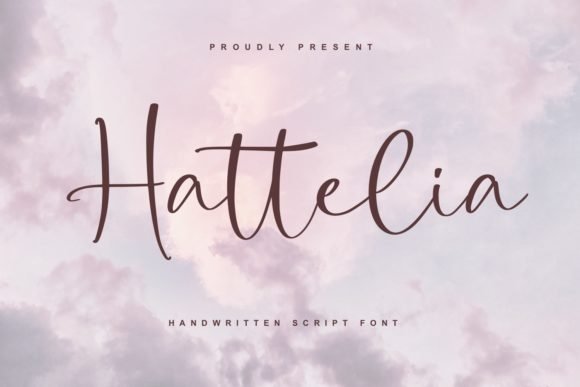
Introducing the Hattelia Font, a beautiful and light handwritten font that adds a touch of luxury to any design project. With its unique feel and stunning impact, this font is perfect for designers who want to make a statement. Whether you’re working on a branding project, a website, or a marketing campaign, the Hattelia Font is sure to elevate your designs and leave a lasting impression.
Hattelia Font Key Features
- Unique Characteristics: Hattelia Font features a unique blend of modern and traditional design elements, with intricate details and ornaments that set it apart from other fonts.
Hattelia Font Review
Overall, I’m impressed with the Hattelia Font. It’s a beautiful, elegant script font that’s perfect for adding a touch of sophistication to your designs.
- Unique and distinctive style: Hattelia Font has a one-of-a-kind look that sets it apart from other script fonts.
- Highly legible: Despite its cursive nature, the font is surprisingly easy to read, even at smaller font sizes.
- Wide range of languages supported: Hattelia Font supports a wide range of languages, making it a great choice for international designs.
- Limited font weights: Hattelia Font only comes in a few font weights, which may limit its versatility in certain designs.
- No italics: While the font is beautiful, it doesn’t come with italics, which can make it harder to create emphasis in text.
- Some character limitations: Certain characters, such as punctuation and symbols, may not be as stylish as others in the font.
Overall, I think Hattelia Font is a great choice for designers looking to add some elegance to their work. While it has some limitations, its unique style and high legibility make it a worthwhile investment.
Hattelia Font Practical Application Guide
Hattelia Font is ideal for:
– Digital signage and displays
– Fashion and beauty branding
– Any project that requires a unique and elegant font.
Getting the Most Out of Hattelia Font
To get the most out of Hattelia Font, experiment with different font sizes, colors, and styles to create visually appealing and consistent designs.
Alternatives to Hattelia Font
Montserrat is a modern sans-serif font that is highly legible and versatile. It is ideal for use in digital media, including websites, apps, and social media platforms. Montserrat is a great alternative to Hattelia Font as it offers a similar modern feel, but with a more geometric and clean aesthetic.
Arimo is a sans-serif font that is highly readable and suitable for body text. It is a great choice for use in print materials, such as brochures, flyers, and business cards. Arimo is similar to Hattelia Font in its simplicity and clean design, but it has a more rounded and friendly feel.
Open Sans is a modern sans-serif font that is highly legible and versatile. It is ideal for use in digital media, including websites, apps, and social media platforms. Open Sans is a great alternative to Hattelia Font as it offers a similar modern feel, but with a more open and airy aesthetic.